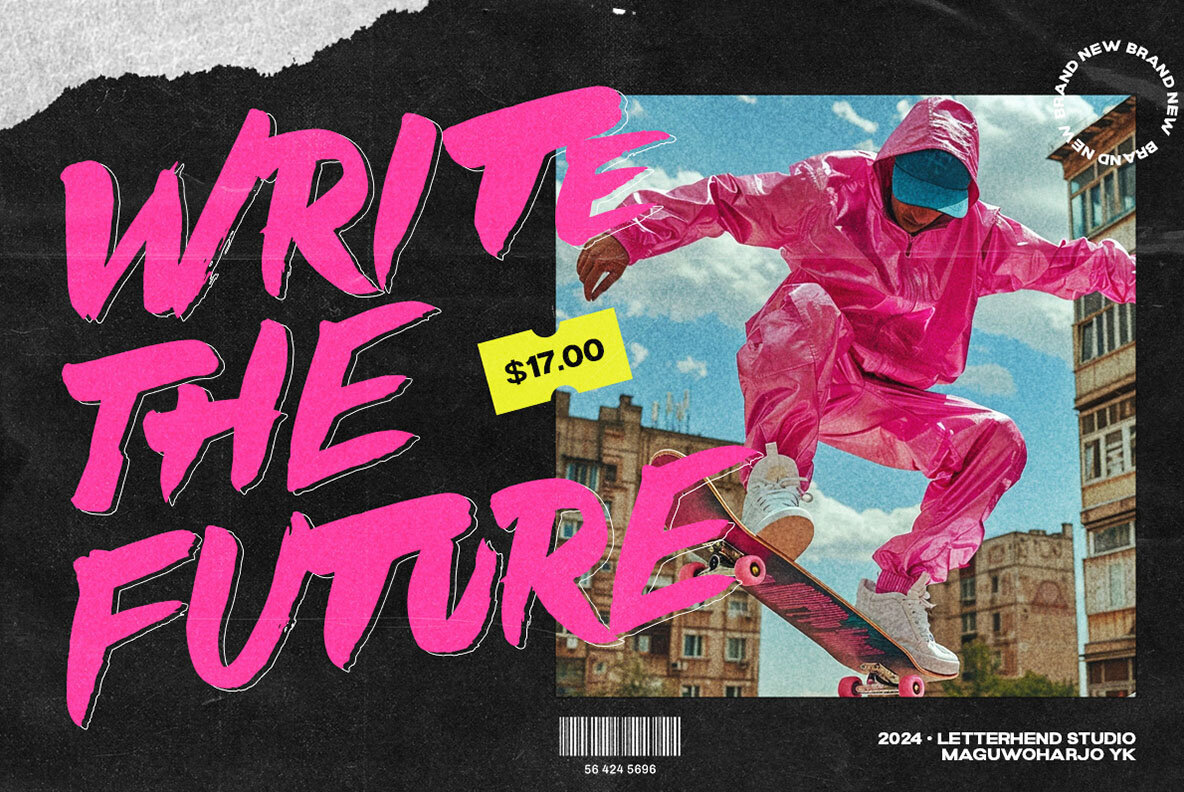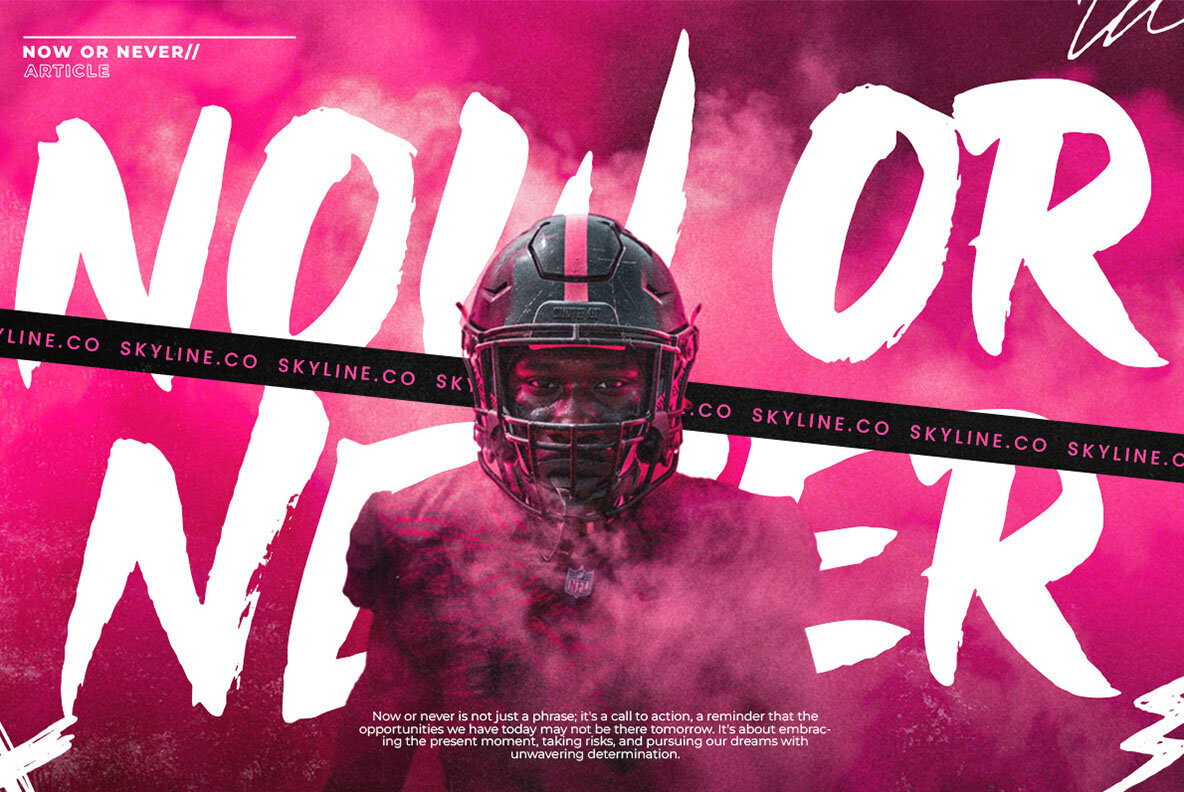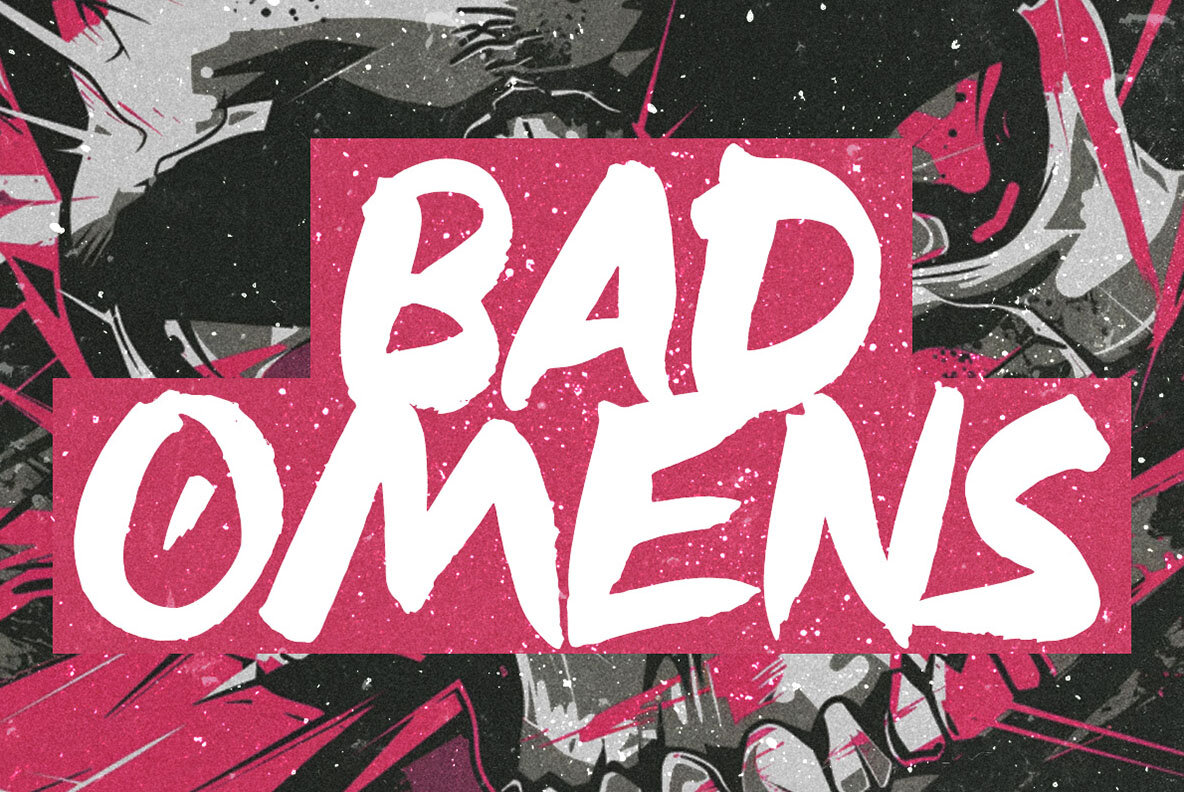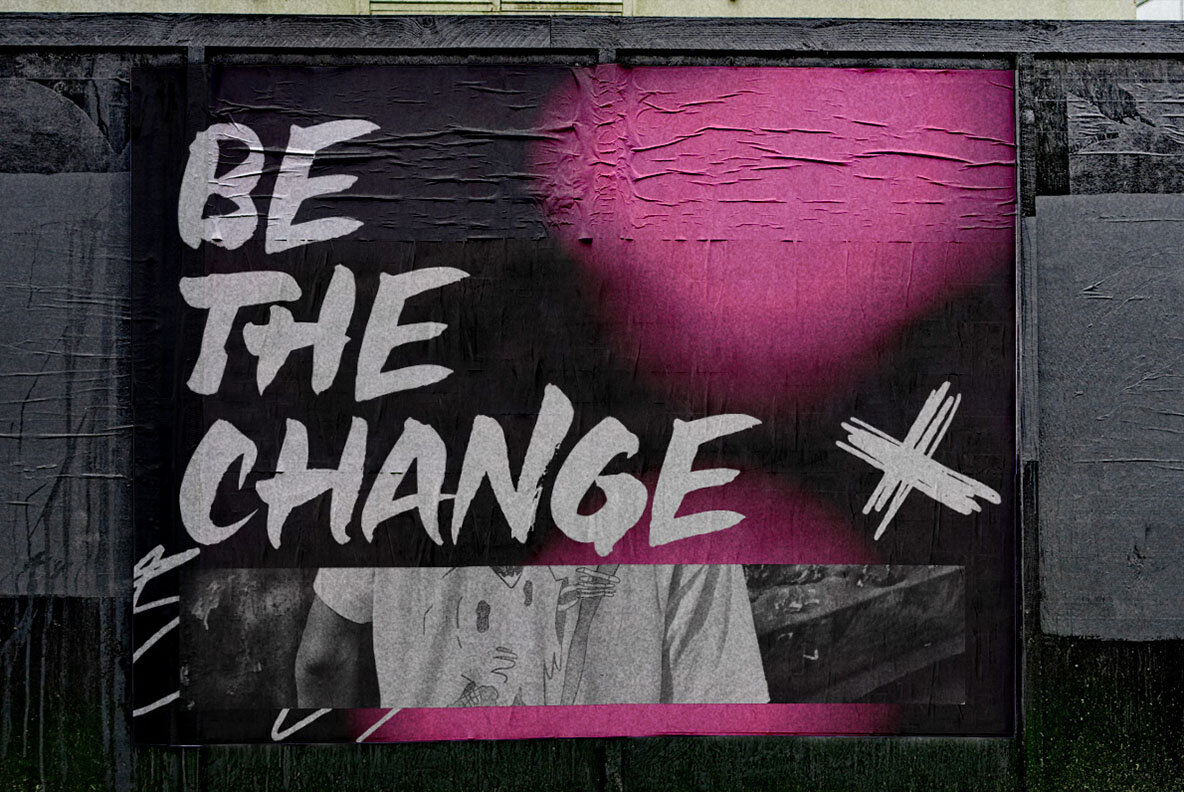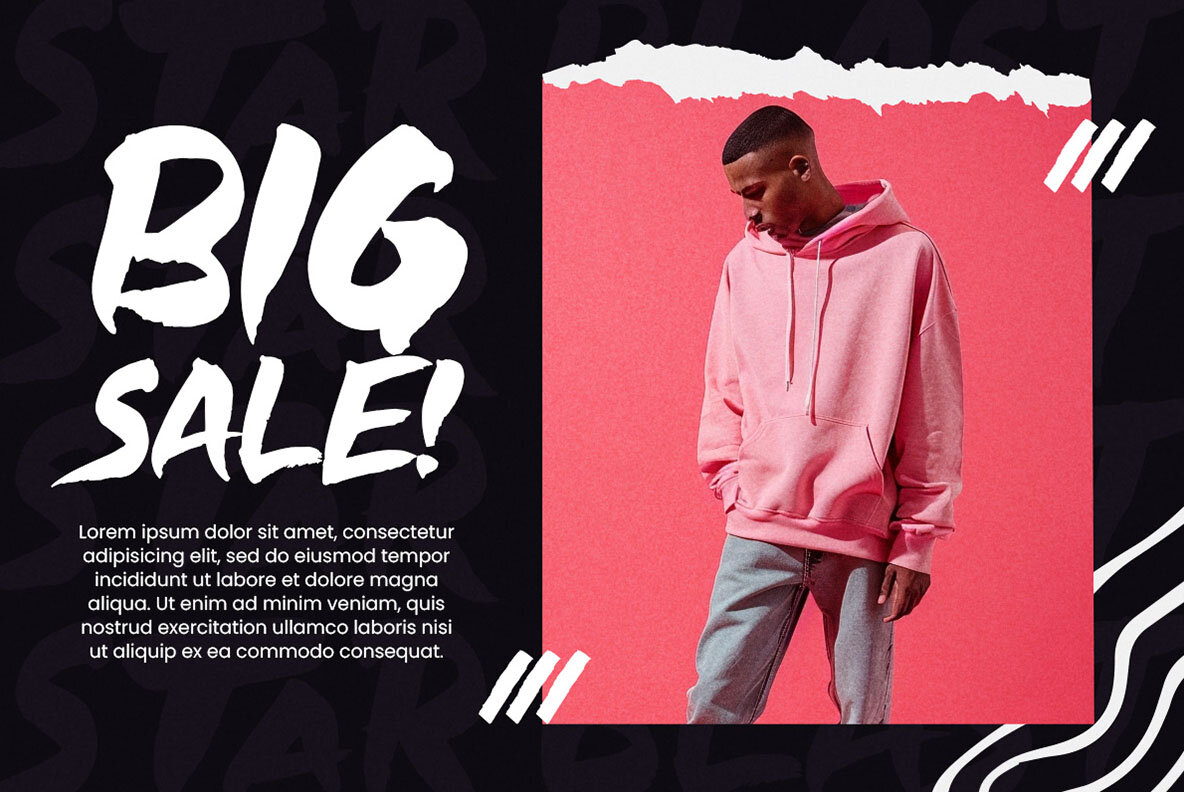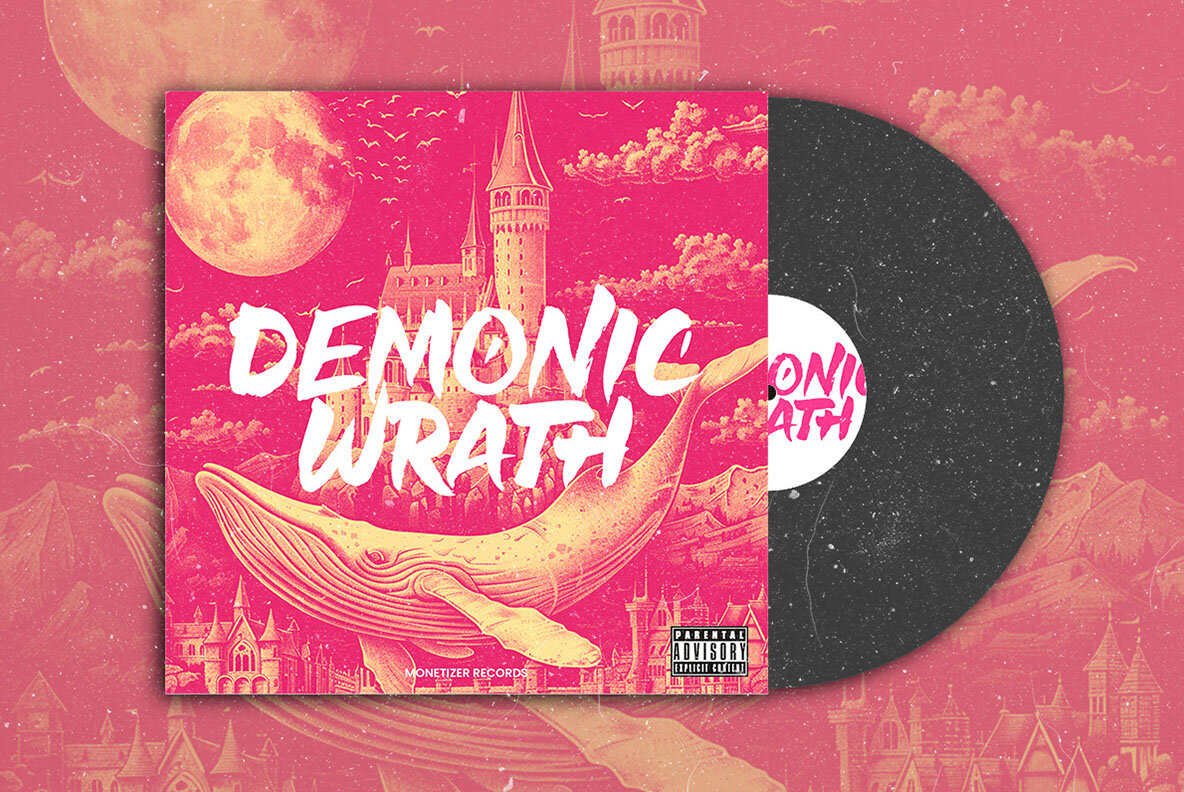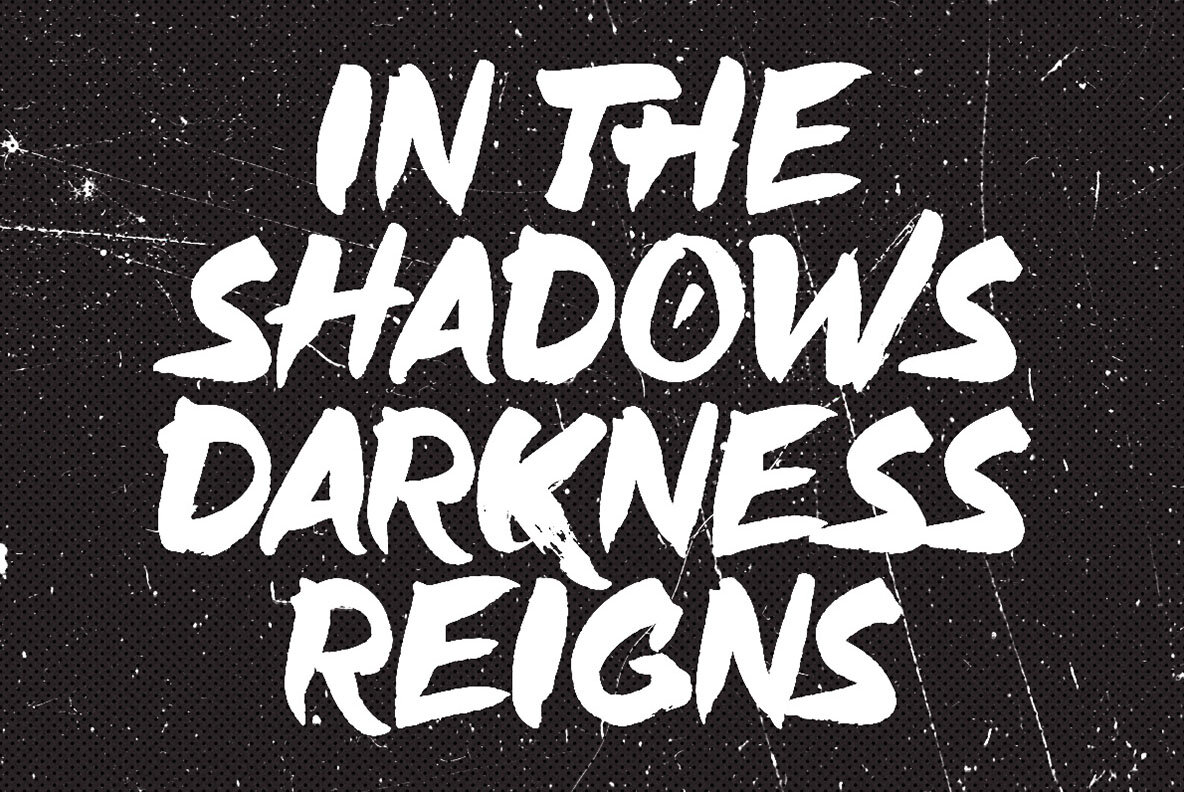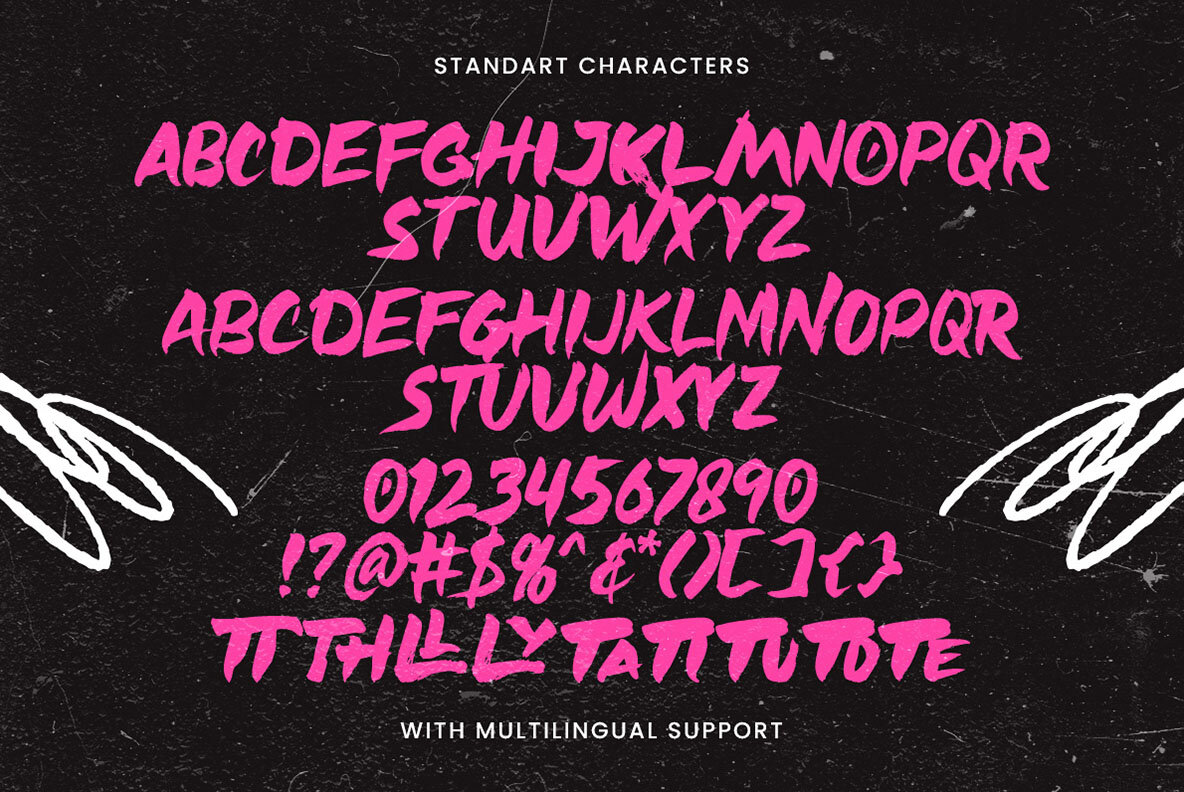
Cargano Brush Font
Cargano Brush Regular
Experience the thrill of the Cargano Brush Font. With its dynamic and casual brush strokes, this font is designed to make headlines pop with energy and attitude. Perfectly suited for the world of sports and skateboarding, its vibrant strokes evoke the adrenaline and excitement of the game. We highly recommend using a program that supports OpenType features and Glyphs panels, such as many Adobe applications and CorelDRAW, to fully access and utilize all Glyph variations.Cargano Brush: Dynamic Brush Font with Energetic Strokes